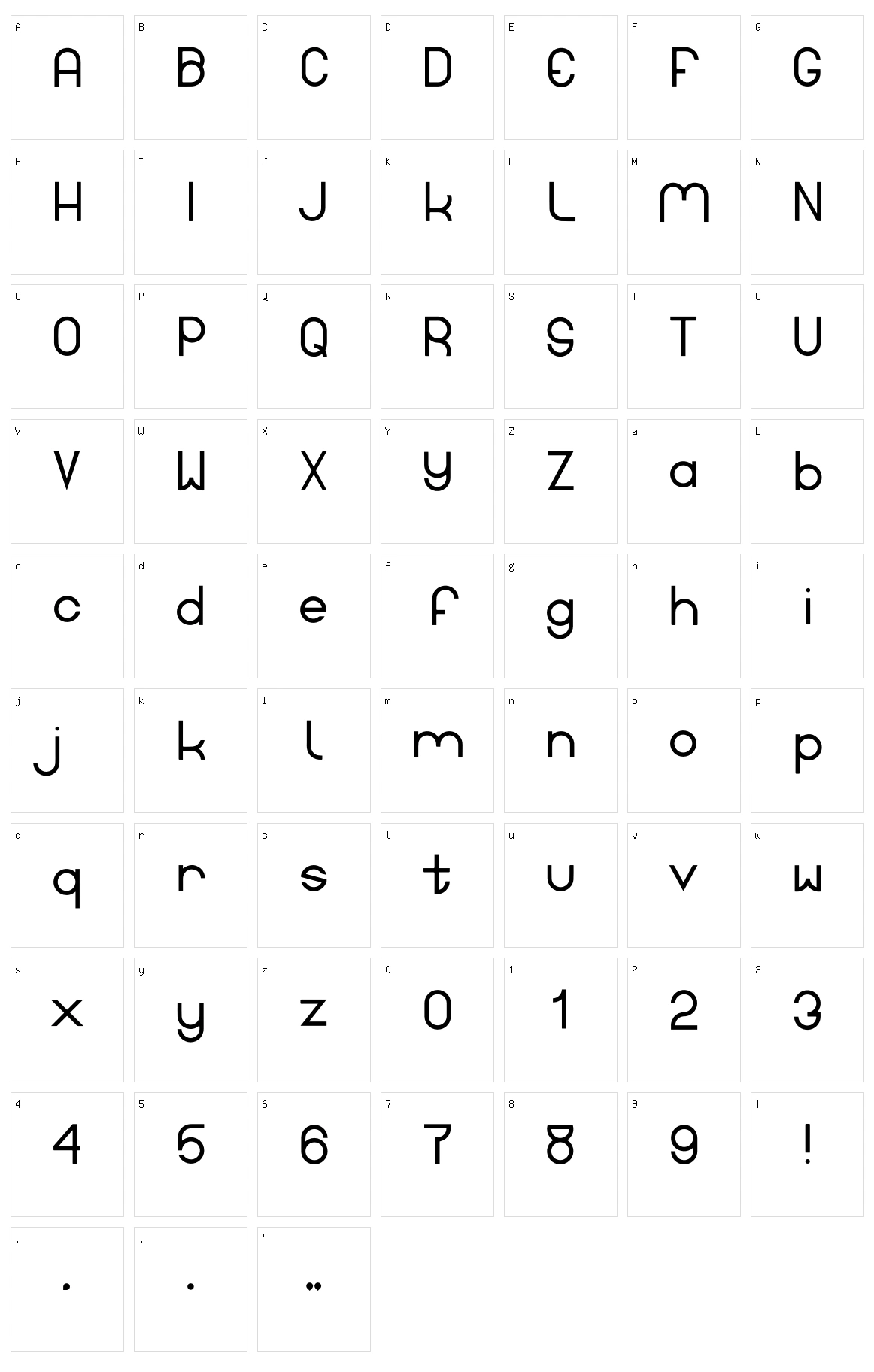
The free font Leona is carefully designed by Jay Hooper, showcasing a thoughtful balance of creativity and usability and falls under the Sans serif font style. When you download the ZIP file, it contains only 27.82 KB of font files, making it lightweight and quick to download. Please review the license details below to understand permitted usage and distribution rights. If license information is not available, we recommend using this font for personal projects only or contacting the author directly for commercial usage permissions.